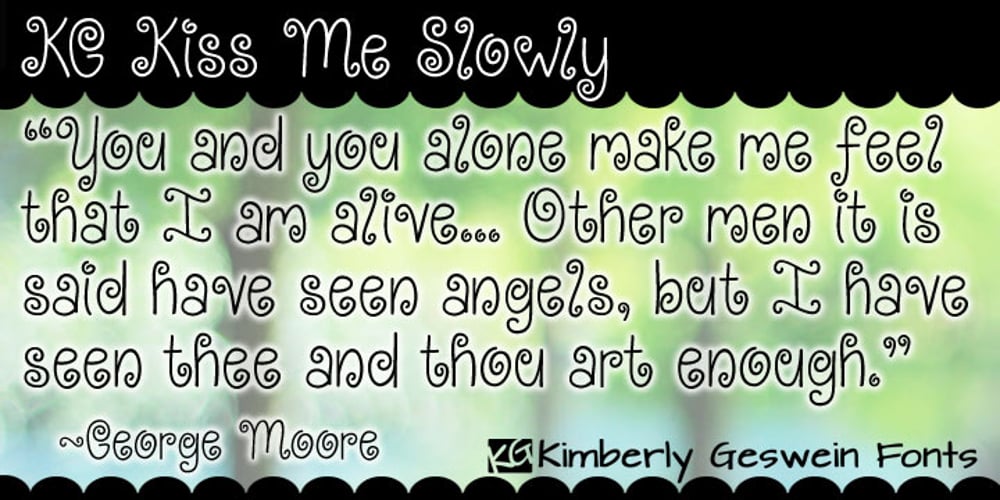
KG Kiss Me Slowly
KG Kiss Me Slowly font
KG Kiss Me Slowly Font Family was designed by Kimberly Geswein and published by Kimberly Geswein. KG Kiss Me Slowly contains 1 styles and family package options. Super curly letters with a playful vibe. Whimsical, fun, and cute- yet still legible enough that you can read it! Cute doesn’t have to be painful to read!